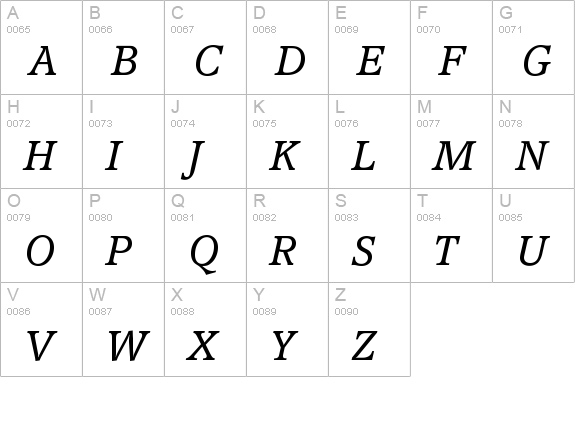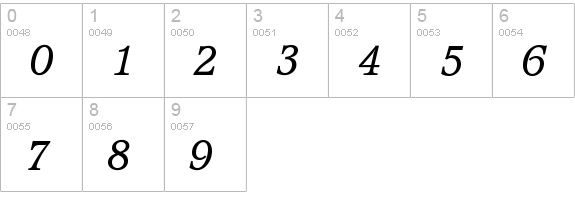
Accolade-LightIta Font Details
Accolade-LightIta is a beautiful and elegant font that exudes sophistication and style. Its delicate curves and slender lines give off a sense of grace and refinement, making it perfect for projects that require a touch of class. The light italic style adds a subtle flair to any design, adding a sense of subtlety and sophistication. What makes Accolade-LightIta even more appealing is that it is available for free download at FontsMarket.com. This means that you can easily access this stunning font without any cost, making it a perfect choice for designers and creatives looking to add a touch of elegance to their projects without breaking the bank. So why wait? Download Accolade-LightIta today and elevate your designs with its timeless beauty.